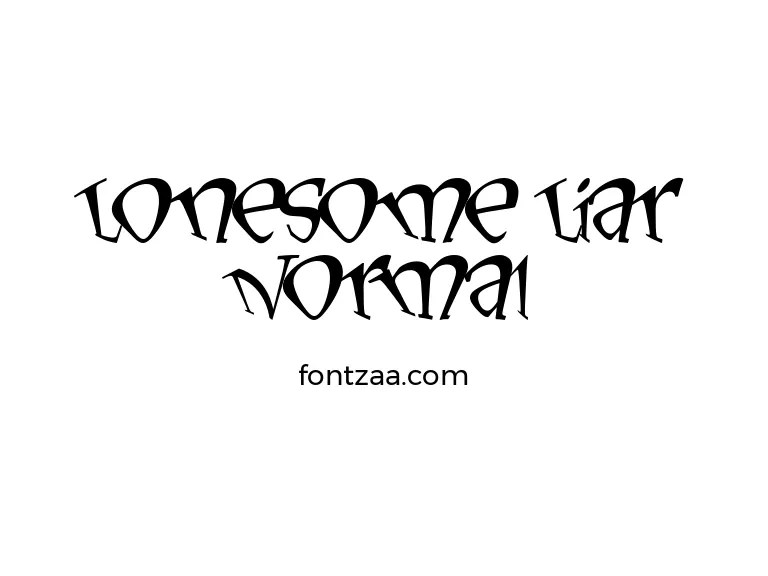
LonesomeLiar Normal Font combines distinctive character shapes with a elegant appearance suited to display-focused design. Designers exploring a elegant typeface can use LonesomeLiar Normal Font to add a more recognizable visual voice to creative display work. The font can work as the primary visual element in a minimal layout or as part of a more detailed composition. The typeface can change considerably depending on tracking, scale, alignment, background and surrounding imagery. Using generous space around the lettering can help the details of the typeface remain visible instead of competing with other elements. Creative uses may range from invitations, wedding stationery, signatures, quotes and elegant branding, with different results depending on scale and layout. Designers should evaluate the typeface inside the real project because a standalone preview cannot show every possible visual combination. A clean serif or sans serif companion can handle smaller text while this font remains focused on headlines and key messages. The available source information lists Unknown Publisher as the designer or publisher. The available licensing label is Free for personal use, but redistribution and commercial permissions should always be confirmed from the original source. A few quick layout variations can help determine where the font creates the strongest visual result.
With its distinctive letterforms, LonesomeLiar Normal Font can introduce a elegant character into headlines, branding and promotional layouts. The typeface can change considerably depending on tracking, scale, alignment, background and surrounding imagery. Using generous space around the lettering can help the details of the typeface remain visible instead of competing with other elements. Its letter shapes become especially noticeable at larger sizes, where spacing and proportions can be explored more clearly. Its display-focused appearance makes it worth testing in invitations, wedding stationery, signatures, quotes and elegant branding. Keeping secondary typography simple often allows the distinctive qualities of the main font to remain more visible. Previewing the final layout on both large and small screens helps identify spacing and readability problems early. The designer or publisher information available for this typeface is Unknown Publisher. License details are currently listed as Free for personal use. Users should verify the supplied documentation before using the font in products or paid projects. Experimenting directly in the intended design is usually the best way to judge whether the typeface suits the project.
With its distinctive letterforms, LonesomeLiar Normal Font can introduce a elegant character into digital and print projects. Testing several arrangements before choosing the final version can reveal which characteristics of the typeface work best. The font can work as the primary visual element in a minimal layout or as part of a more detailed composition. Its letter shapes become especially noticeable at larger sizes, where spacing and proportions can be explored more clearly. Possible applications include invitations, wedding stationery, signatures, quotes and elegant branding. Previewing the final layout on both large and small screens helps identify spacing and readability problems early. A clean serif or sans serif companion can handle smaller text while this font remains focused on headlines and key messages. According to the available font information, the typeface is associated with Unknown Publisher. Current license information is shown as Free for personal use; checking the original documentation is recommended before client or commercial work. The most effective treatment will vary by project, so designers should compare several versions before finalizing the artwork.
LonesomeLiar Normal Font Family
The LonesomeLiar Normal Font Family can be explored in multiple compositions by adjusting typography size, spacing and surrounding design elements. For projects that need typography with a stronger identity, LonesomeLiar Normal Font offers a elegant direction suited to font-family exploration. The typeface can change considerably depending on tracking, scale, alignment, background and surrounding imagery. Testing several arrangements before choosing the final version can reveal which characteristics of the typeface work best. The font can work as the primary visual element in a minimal layout or as part of a more detailed composition. Designers may explore it across invitations, wedding stationery, signatures, quotes and elegant branding, depending on the tone and requirements of the project. For layouts containing longer information, pairing it with a simpler supporting typeface can improve readability and hierarchy. Previewing the final layout on both large and small screens helps identify spacing and readability problems early. The available source information lists Unknown Publisher as the designer or publisher. License details are currently listed as Free for personal use. Users should verify the supplied documentation before using the font in products or paid projects. The most effective treatment will vary by project, so designers should compare several versions before finalizing the artwork.
Branding Ideas With LonesomeLiar Normal Font
LonesomeLiar Normal Font brings a elegant personality to typography and gives designers a flexible starting point for logos, wordmarks and visual identity systems. The font can work as the primary visual element in a minimal layout or as part of a more detailed composition. Testing several arrangements before choosing the final version can reveal which characteristics of the typeface work best. Different color combinations can make the same font feel subtle, energetic, premium or highly decorative. Its display-focused appearance makes it worth testing in invitations, wedding stationery, signatures, quotes and elegant branding. Keeping secondary typography simple often allows the distinctive qualities of the main font to remain more visible. Previewing the final layout on both large and small screens helps identify spacing and readability problems early. The available source information lists Unknown Publisher as the designer or publisher. License details are currently listed as Free for personal use. Users should verify the supplied documentation before using the font in products or paid projects. Testing the font with the actual project text can provide a much better impression than viewing isolated sample characters.
Tips for Better Results With LonesomeLiar Normal Font
For projects that need typography with a stronger identity, LonesomeLiar Normal Font offers a elegant direction suited to spacing, contrast, scale and layout decisions. The typeface can change considerably depending on tracking, scale, alignment, background and surrounding imagery. Different color combinations can make the same font feel subtle, energetic, premium or highly decorative. Using generous space around the lettering can help the details of the typeface remain visible instead of competing with other elements. Designers may explore it across invitations, wedding stationery, signatures, quotes and elegant branding, depending on the tone and requirements of the project. For layouts containing longer information, pairing it with a simpler supporting typeface can improve readability and hierarchy. Print and digital layouts may require different sizing and spacing, so testing the actual output dimensions is recommended. The available source information lists Unknown Publisher as the designer or publisher. The listed license is Free for personal use, although users should still review the original font package before commercial use. A few quick layout variations can help determine where the font creates the strongest visual result.
Choosing Supporting Fonts for LonesomeLiar Normal Font
For projects that need typography with a stronger identity, LonesomeLiar Normal Font offers a elegant direction suited to combining the display font with supporting typefaces. The font can work as the primary visual element in a minimal layout or as part of a more detailed composition. Using generous space around the lettering can help the details of the typeface remain visible instead of competing with other elements. Testing several arrangements before choosing the final version can reveal which characteristics of the typeface work best. The font can be considered for projects such as invitations, wedding stationery, signatures, quotes and elegant branding. Print and digital layouts may require different sizing and spacing, so testing the actual output dimensions is recommended. A clean serif or sans serif companion can handle smaller text while this font remains focused on headlines and key messages. According to the available font information, the typeface is associated with Unknown Publisher. The listed license is Free for personal use, although users should still review the original font package before commercial use. Experimenting directly in the intended design is usually the best way to judge whether the typeface suits the project.
Social Media Ideas With LonesomeLiar Normal Font
LonesomeLiar Normal Font stands out through its individual shapes and can become an important visual element in posters, campaigns, thumbnails and promotional content. Testing several arrangements before choosing the final version can reveal which characteristics of the typeface work best. The typeface can change considerably depending on tracking, scale, alignment, background and surrounding imagery. Its letter shapes become especially noticeable at larger sizes, where spacing and proportions can be explored more clearly. The font can be considered for projects such as invitations, wedding stationery, signatures, quotes and elegant branding. Designers should evaluate the typeface inside the real project because a standalone preview cannot show every possible visual combination. Keeping secondary typography simple often allows the distinctive qualities of the main font to remain more visible. According to the available font information, the typeface is associated with Unknown Publisher. Current license information is shown as Free for personal use; checking the original documentation is recommended before client or commercial work. A few quick layout variations can help determine where the font creates the strongest visual result.
What Makes LonesomeLiar Normal Font Stand Out
LonesomeLiar Normal Font brings a elegant personality to typography and gives designers a flexible starting point for the visual characteristics and design personality of the typeface. Its letter shapes become especially noticeable at larger sizes, where spacing and proportions can be explored more clearly. The font can work as the primary visual element in a minimal layout or as part of a more detailed composition. Different color combinations can make the same font feel subtle, energetic, premium or highly decorative. The font can be considered for projects such as invitations, wedding stationery, signatures, quotes and elegant branding. Print and digital layouts may require different sizing and spacing, so testing the actual output dimensions is recommended. Designers should evaluate the typeface inside the real project because a standalone preview cannot show every possible visual combination. The designer or publisher information available for this typeface is Unknown Publisher. The listed license is Free for personal use, although users should still review the original font package before commercial use. Experimenting directly in the intended design is usually the best way to judge whether the typeface suits the project.